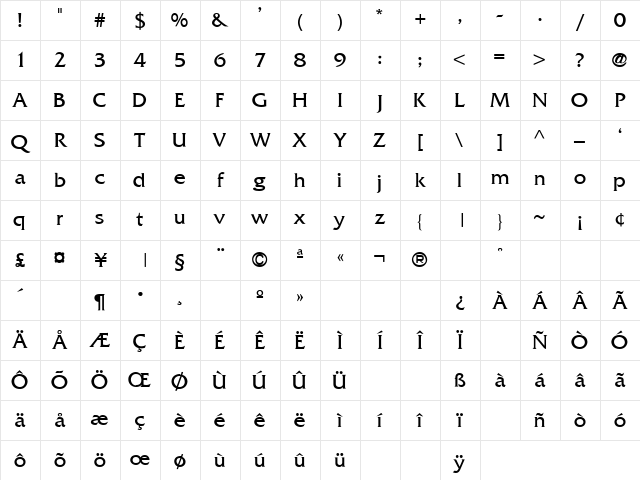
FrizQuadrata Thin
Style: Thin
FrizQuadrata Family
FrizQuadrata Thin
FrizQuadrata Thin Character Map
Complete FrizQuadrata Thin glyph index. Displaying only characters natively supported by FrizQuadrata Thin font.
FrizQuadrata Thin Character Map
Design Context for FrizQuadrata
FrizQuadrata is a composed and adaptable typeface that performs quietly and consistently across a wide range of design contexts. Its slender proportions lend an understated elegance to any composition.